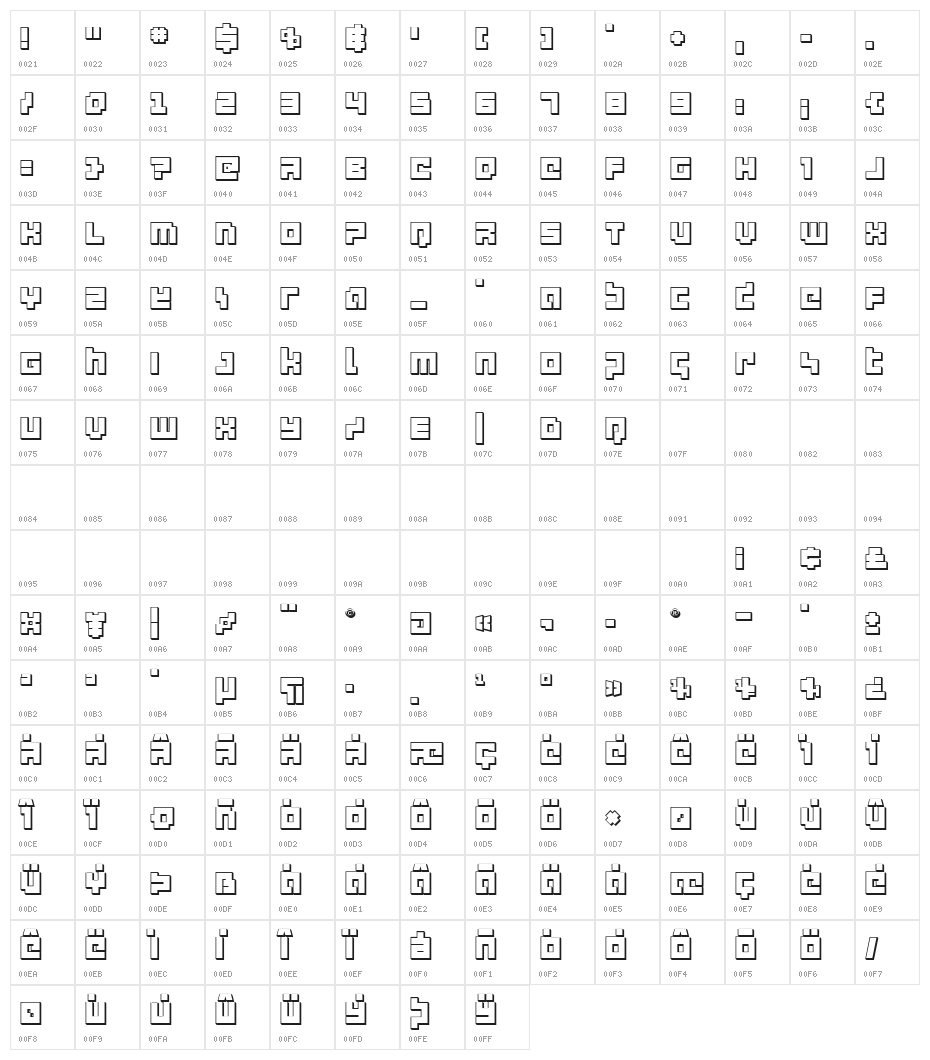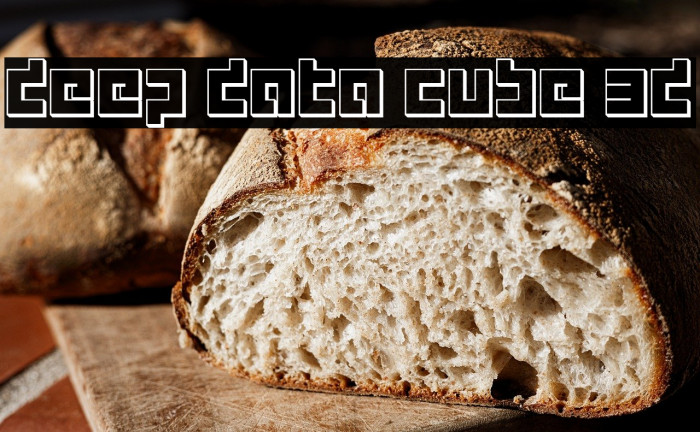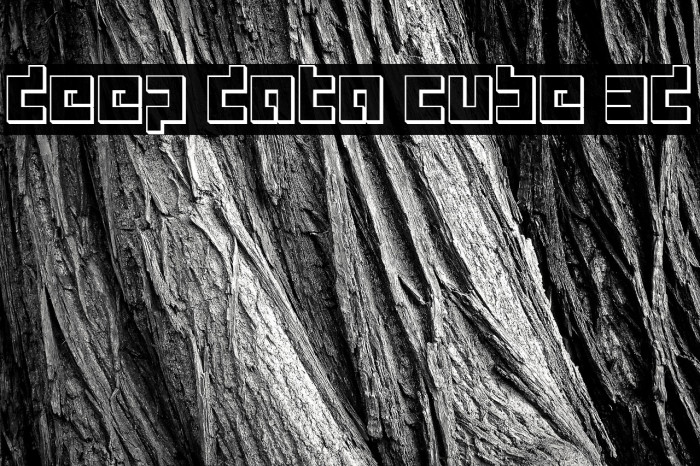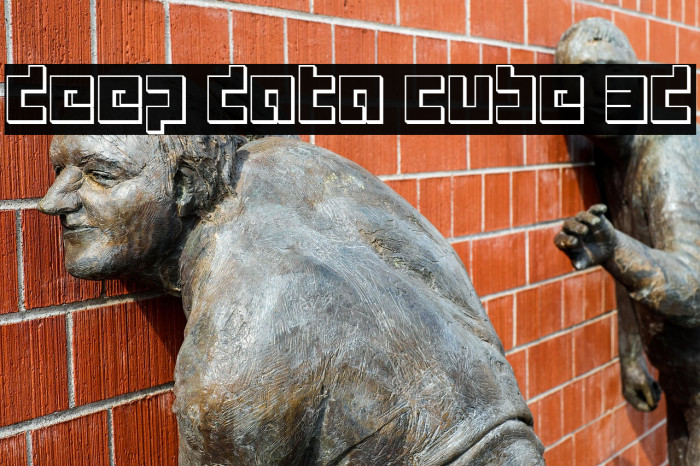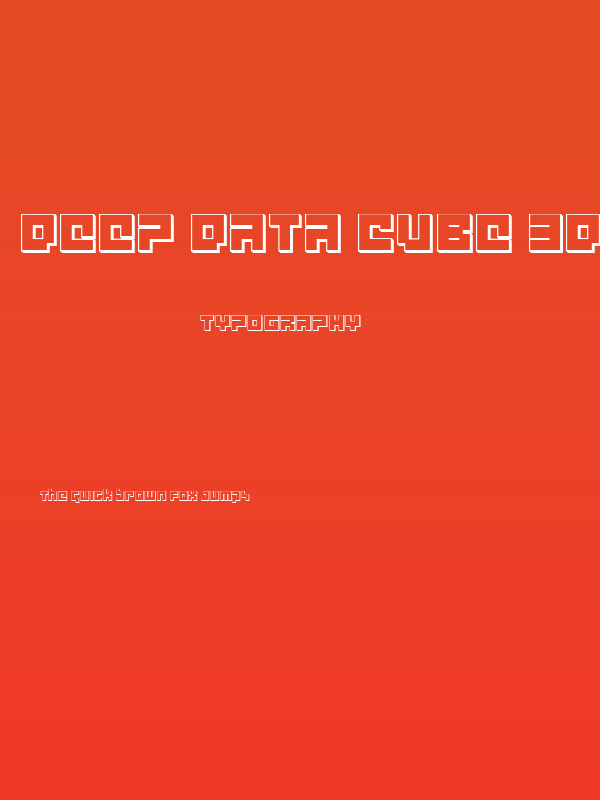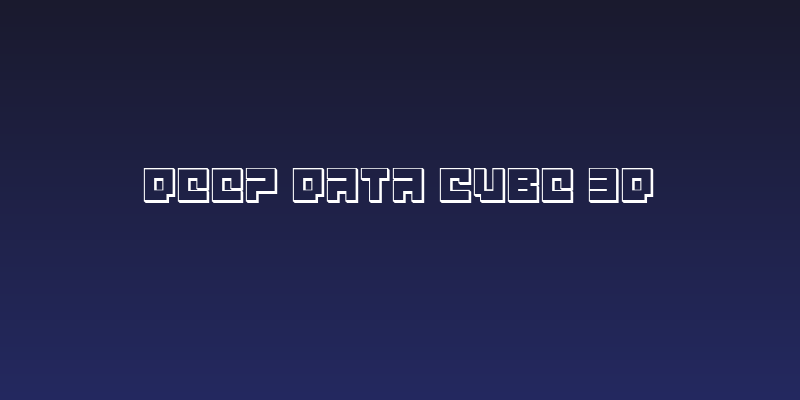
deep data cube 3d Font
deep data cube 3d Description
This font features a bold, geometric design with a three-dimensional cube-like appearance. Each character is constructed with thick lines and sharp angles, creating a sense of depth and structure. The uniformity and consistency across both uppercase and lowercase letters, as well as numbers and special characters, make it visually striking. The font's design is reminiscent of digital or futuristic themes, making it ideal for projects that require a modern and edgy look. Its distinct style is both eye-catching and memorable, suitable for creative and innovative applications.
| Proposed Projects | This font is perfect for digital art projects, video game titles, tech-related branding, and futuristic posters. |